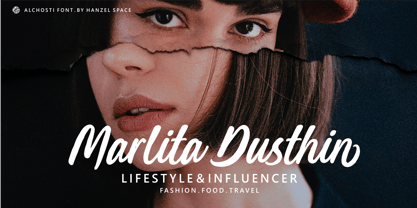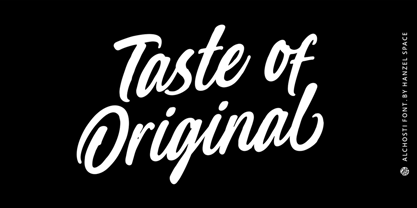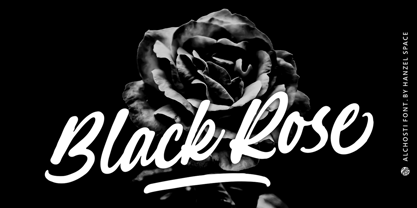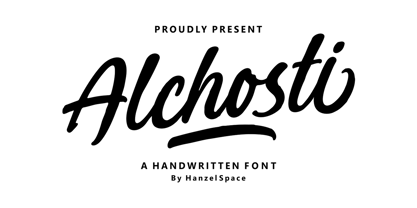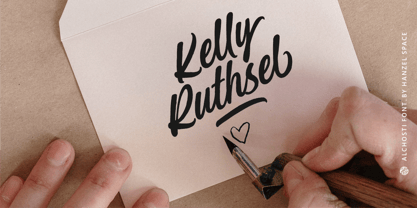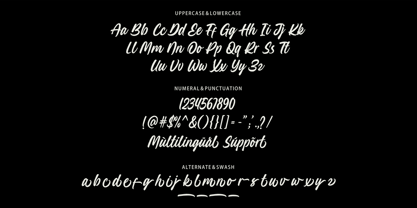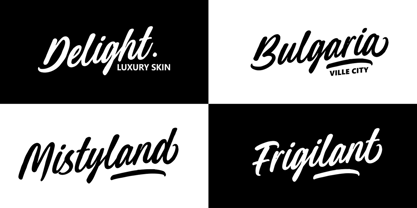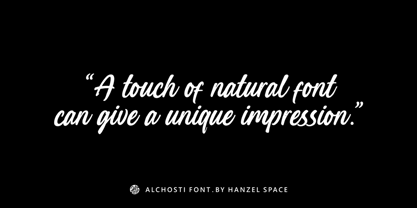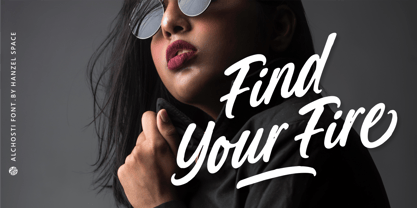
Alchosti
The Alchosti Font Family was designed by Hanief Farandi and published by Hanzel Space. Alchosti contains 1 styles. More about this family
Alchosti Made with original handwriting, it has a slight texture so it looks natural a clear style and dramatic movement this font is great for your next creative project such as logos, editorial design, simple branding, instagram quotes, wedding stationery, packaging, websites, and more!
• Uppercase & Lowercase
• Numerals & Punctuation
• Multilanguage Supports
• Ligature